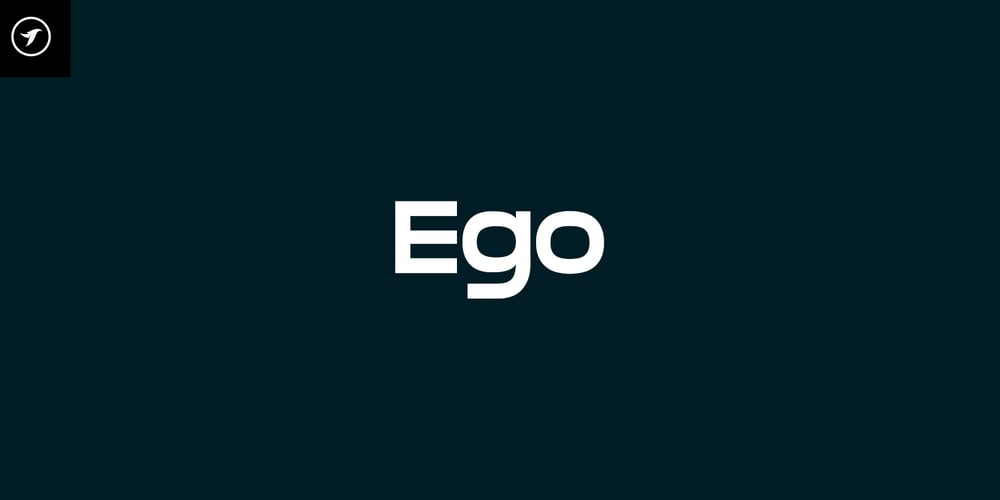
Ego Display Font Family was designed by Jean Johnson and published by Designova. Ego Display contains 4 styles and family package options. EGO is a unique typeface for branding, logotypes, headlines, big text & display usage. This typeface is best for creating modern logos, promotional content and marketing graphics that can really grab attention of your clients. Please see the examples shown above to get an idea about the capability of this typeface.EGO comes with Extended Latin character sets including Western European, Central European, and South-Eastern European character sets (a total of 242 glyphs) available with Regular & Italic variants.